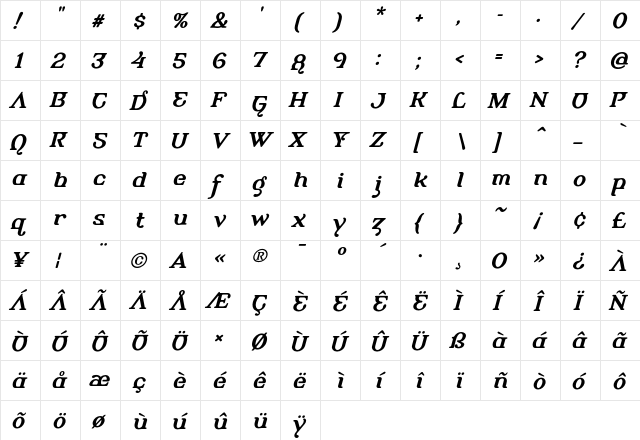
Alembic BoldItalicTwo
Design Context for Alembic Typeface
Alembic takes a measured approach to typography — its balanced proportions and neutral character make it a reliable workhorse for both digital and print work. The dynamic lean of this cut emphasises speed and emphasis in any layout. Its bold stroke weight gives it real presence on the page.
Pro Tip: Use Alembic for emphasis, pull quotes, and subheadings where its slanted energy can add rhythm to the layout.